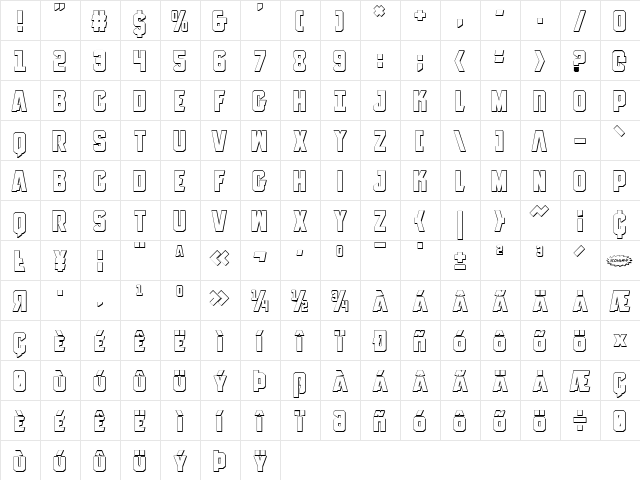
Anitlles 3D Regular
Design Context for Anitlles 3D Typeface
Anitlles 3D is a composed and adaptable typeface that performs quietly and consistently across a wide range of design contexts.